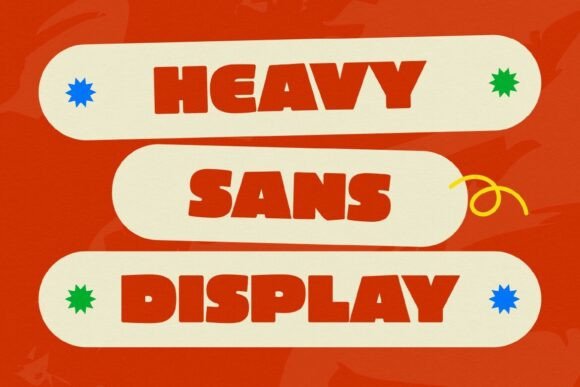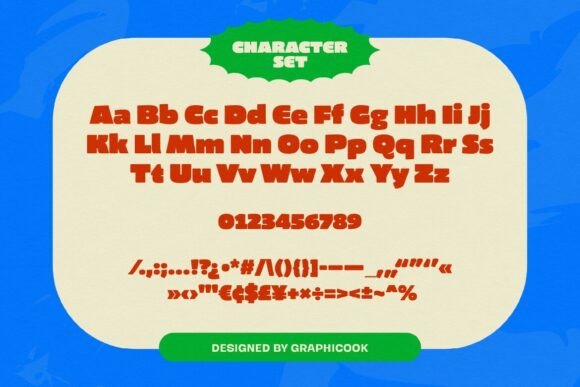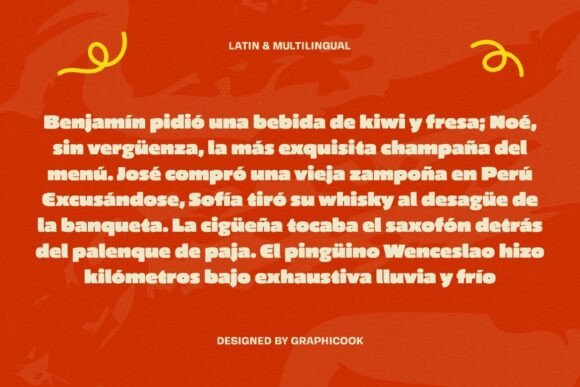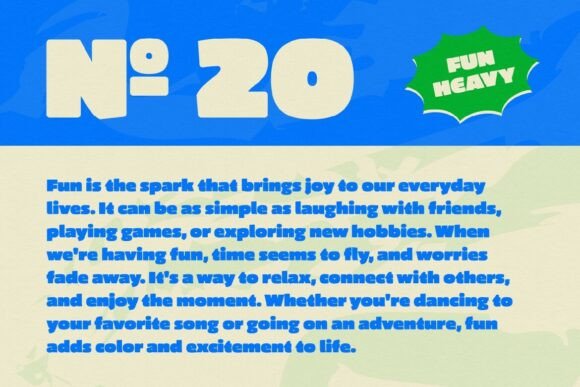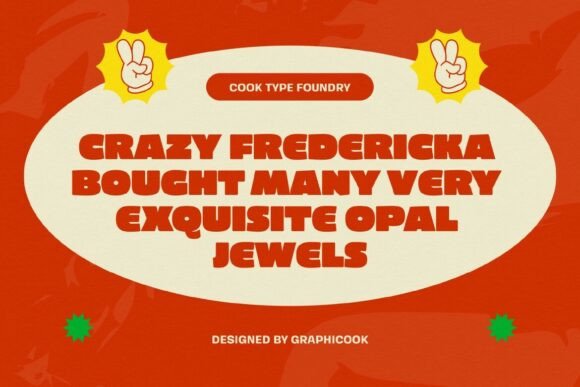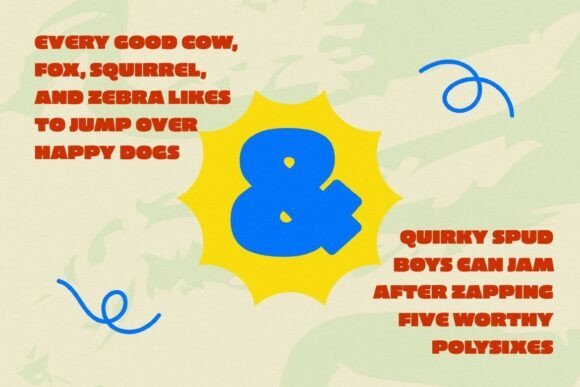
Get Ready to Level Up Your Designs with the Fattonic Font
Do you remember the rush of excitement when you stumbled upon the perfect font for a project? Maybe it was the perfect mix of style and versatility that made your design come alive. For designers, finding the right font can be the difference between a good design and a great one. And, that’s where the Fattonic Font comes in – an experimental font that’s about to take your designs to the next level.
With its thick, wide letterforms and retro flair, the Fattonic Font is perfect for creating eye-catching designs that stand out in any context. Whether you’re working on a logo, headline, or magazine layout, this font is sure to add a touch of nostalgia and sophistication to your work.
Fattonic Font Key Features
- Unique Characteristics: Unique blend of modern and vintage design elements, with a focus on bold, energetic typography
- Font Styles: Includes 5 font styles: Light, Regular, Medium, Bold, and Black, each with its own unique characteristics
Fattonic Font Review
I recently had the chance to work with the Fattonic Font, and I must say it’s a mixed bag. Here are my thoughts.
- Unique aesthetic: Fattonic Font has a distinct, quirky feel that can be perfect for projects that need a bit of whimsy.
- Good for display use: The font’s bold lines and irregular shapes make it well-suited for headings and titles.
- Customizable: Fattonic Font offers a range of styles and weights, allowing you to tailor the font to your specific needs.
- Readability issues: The font’s irregularities can make it difficult to read, especially in large blocks of text.
- Lack of consistency: The font’s style and weight can vary significantly between different characters, which can be jarring to the eye.
- Not ideal for body text: Due to its unique aesthetic, Fattonic Font may not be the best choice for large blocks of text or body copy.
Overall, Fattonic Font is a solid choice for projects that need a bit of flair, but it may not be the best fit for every design task. With some careful consideration and planning, it can be a great addition to your design toolkit.
Fattonic Font is ideal for creating eye-catching headings and titles. It’s also great for use in logos, social media graphics, and other visual elements where a bold and playful font is desired.
For best results, pair Fattonic Font with a clean and simple font for body text.